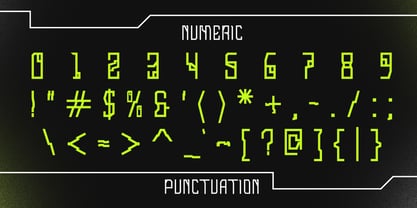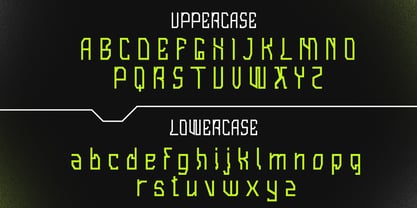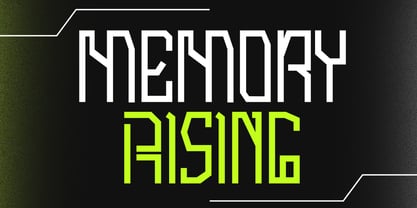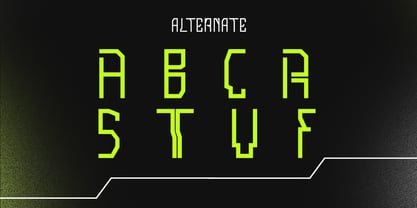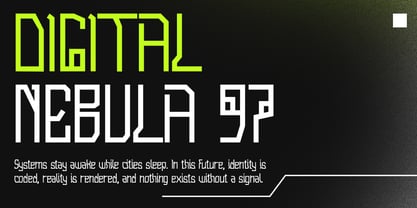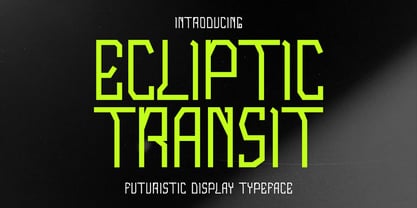
Ecliptic_Transit
by Stubborn Type
The Ecliptic_Transit Font Family was designed by Arya Zebua and published by Stubborn Type. Ecliptic_Transit contains 1 styles. More about this family
Ecliptic Transit is a futuristic display typeface inspired by sci-fi interfaces, digital readouts, and high-tech visual systems. Built with sharp geometric cuts and angular strokes, this font delivers a strong sense of motion, precision, and modern technology. Its narrow proportions and mechanical structure make Ecliptic Transit ideal for headlines, posters, gaming visuals, tech branding, cyberpunk themes, UI mockups, and experimental typography. Each character feels engineered rather than drawn clean, confident, and unapologetically digital.
Designers: Arya Zebua
Foundry: Stubborn Type